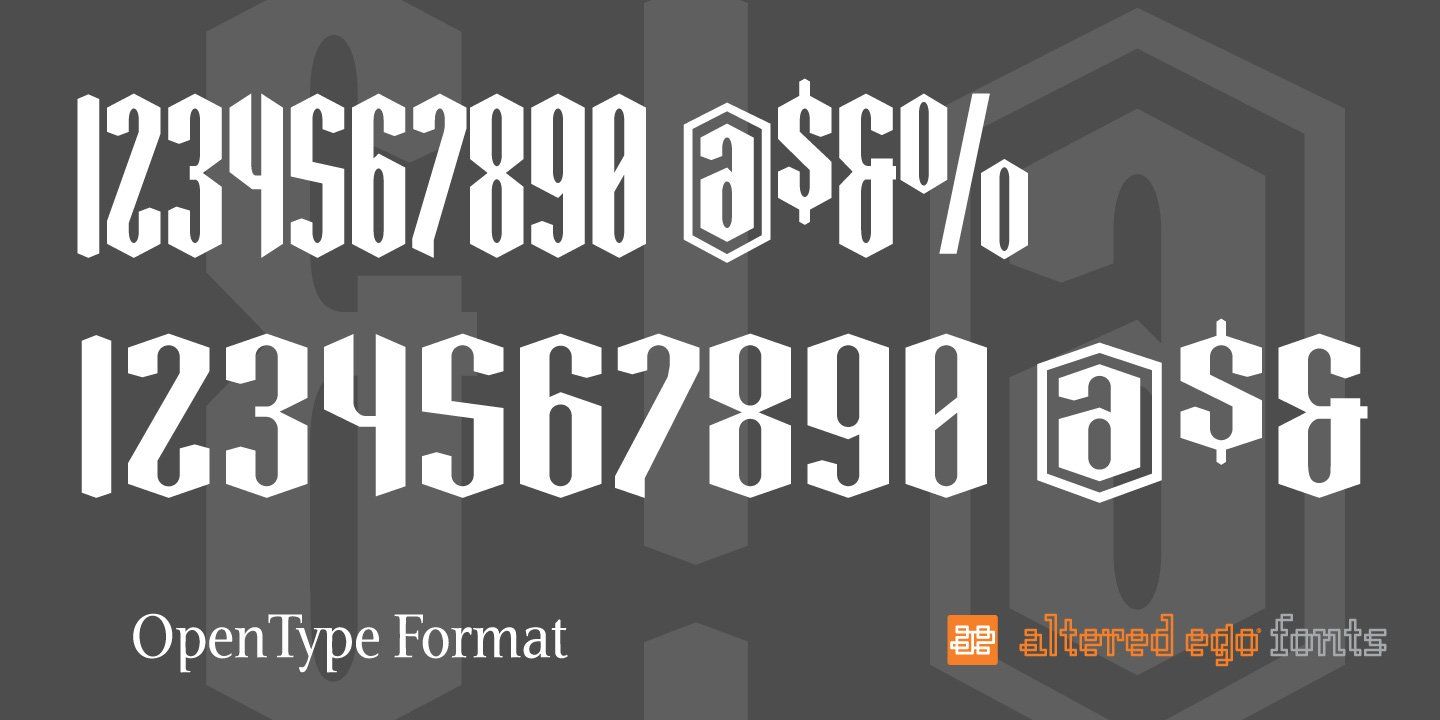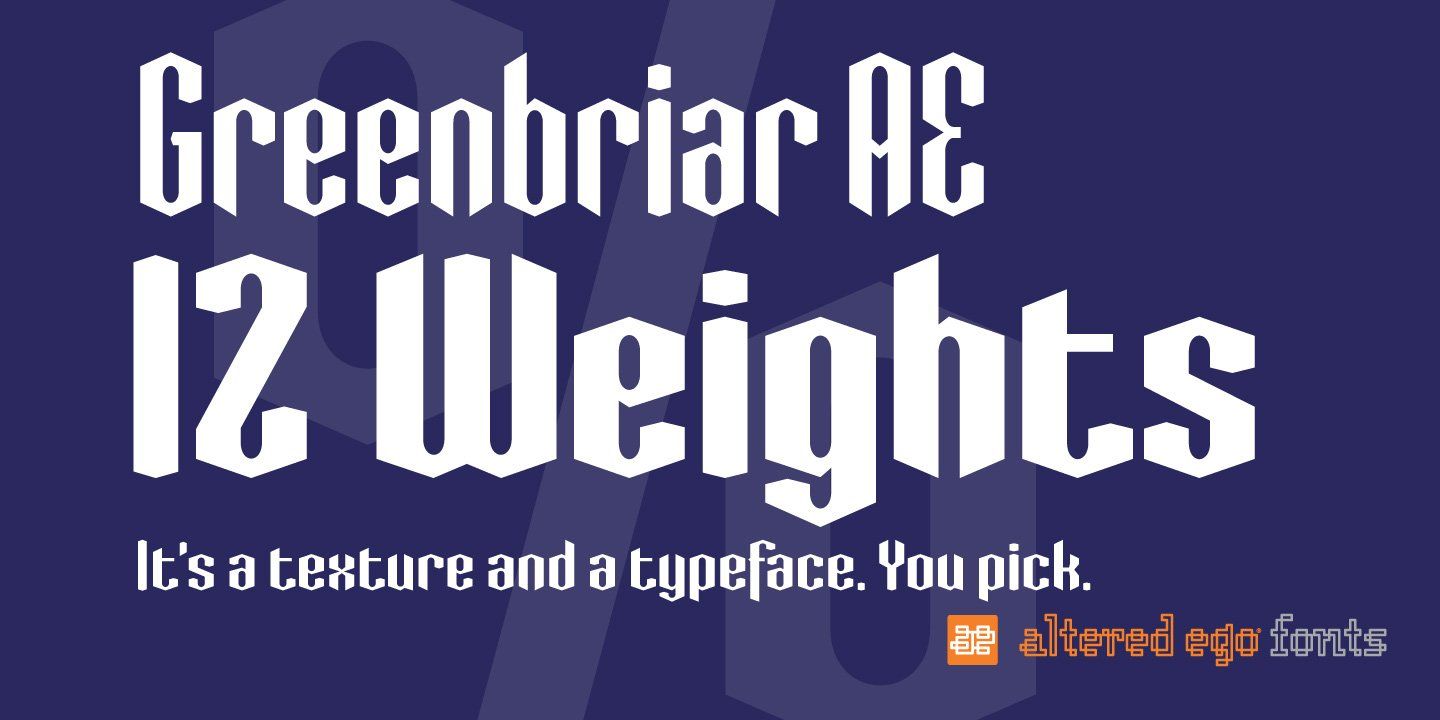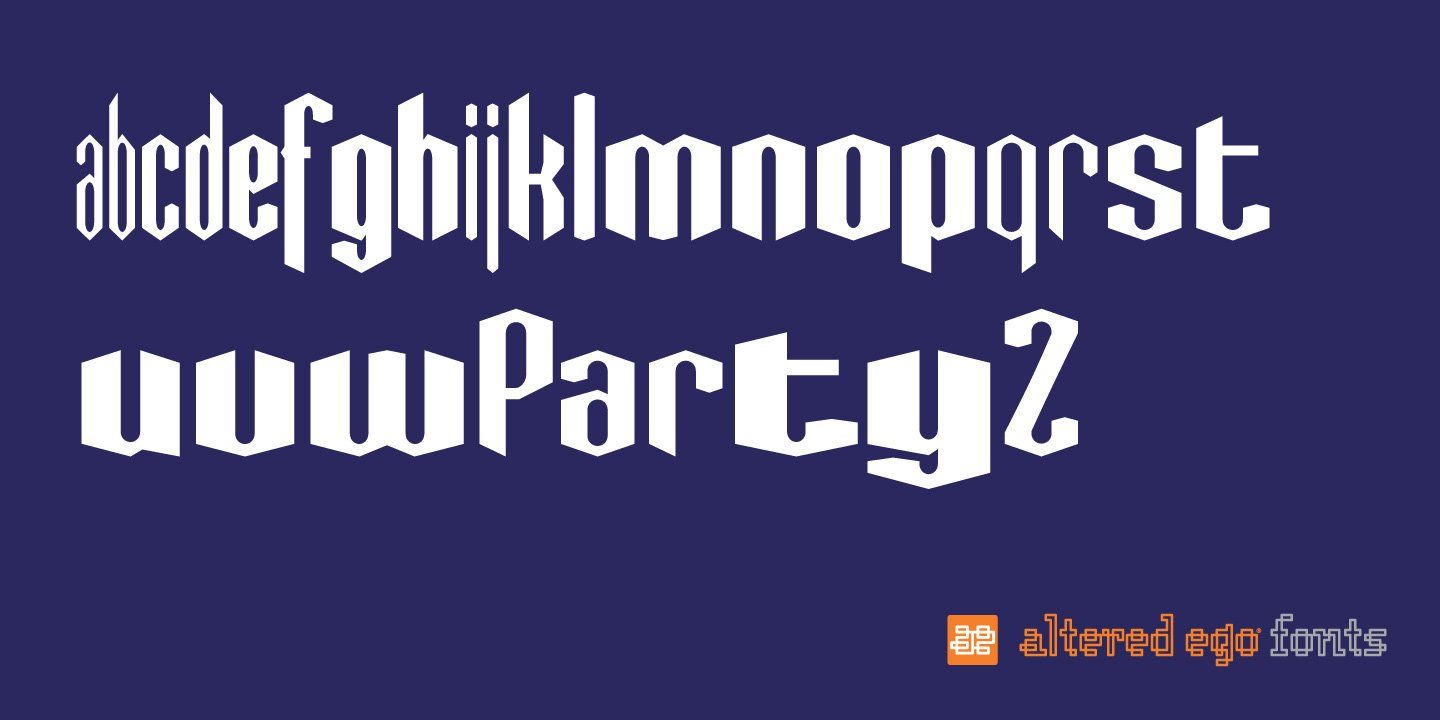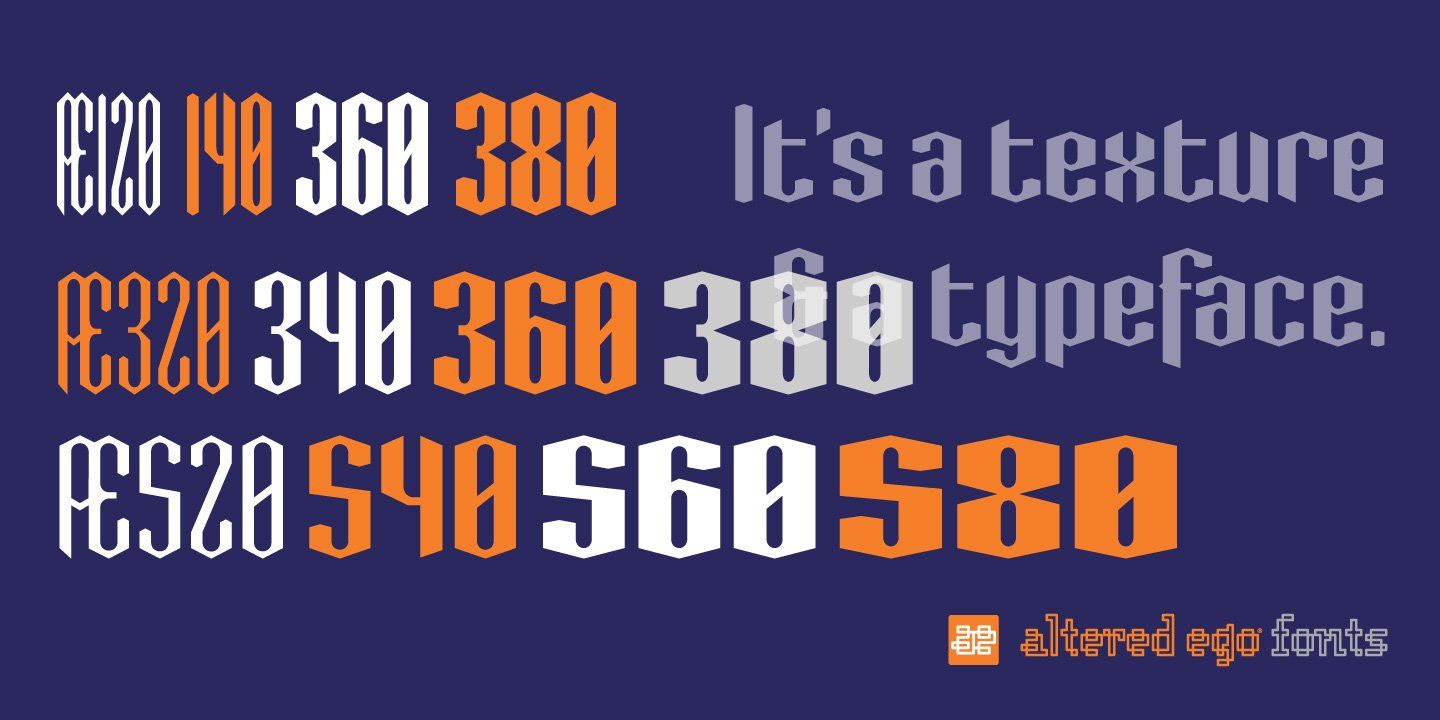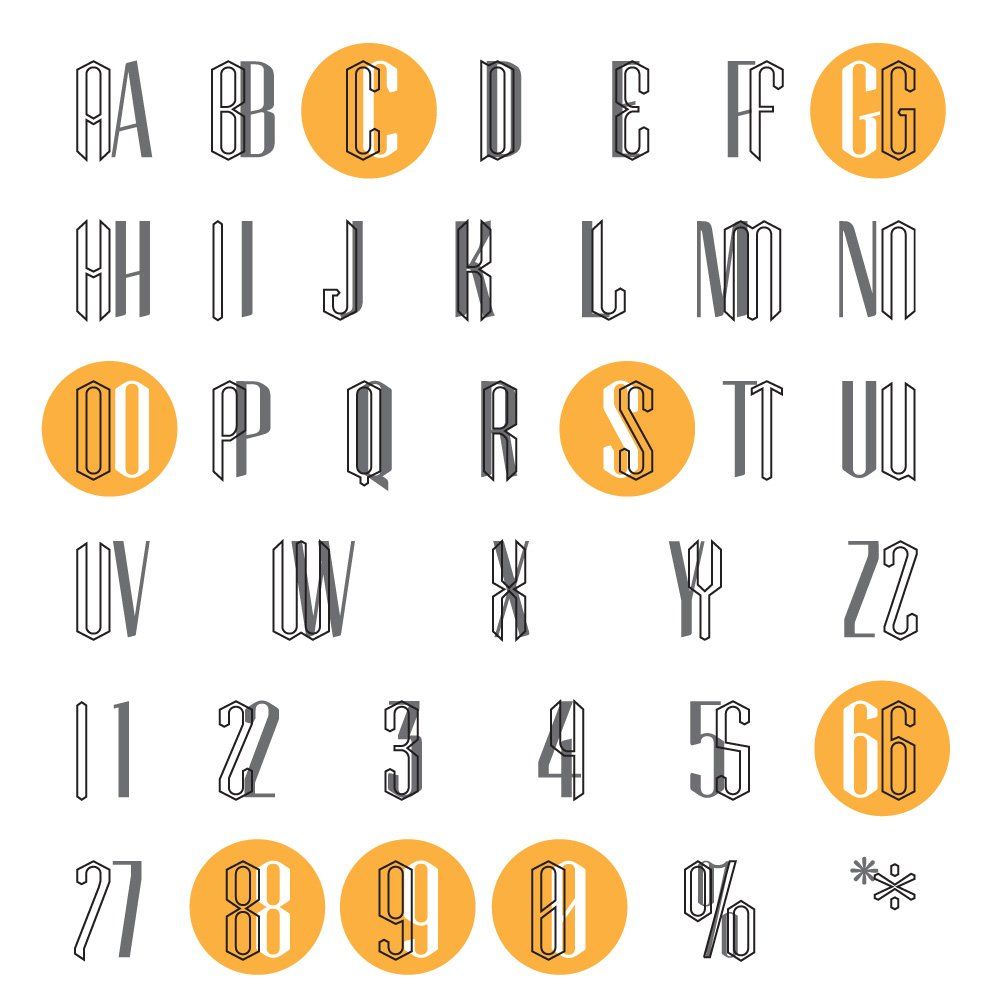
Altered Ego Greenbriar
Geometric modernist typeface family for packaging and headlines
Greenbriar AE is a multi weight and width font family with roots in black letter and the honey combs of a beehive
Greenbriar AEF bears resemblance to black letter type. It’s crisply drawn and creates a hypnotic rhythm through the interplay of stroke and counter, weight and width. If you’ve seen Greenbriar, you know the inspiration for Tommaso.
A hypnotic typographic extravanganza
The Greenbriar numbering scheme is based on the weight and width axes of a multiple master from which the instances are generated. The first number in any of the series (1 through 5) relates to the width. The second two numbers (20 through 80, in 20-unit increments) relates to the weight within the width series.
Mix and match the series for a hypnotic typographic extravanganza!